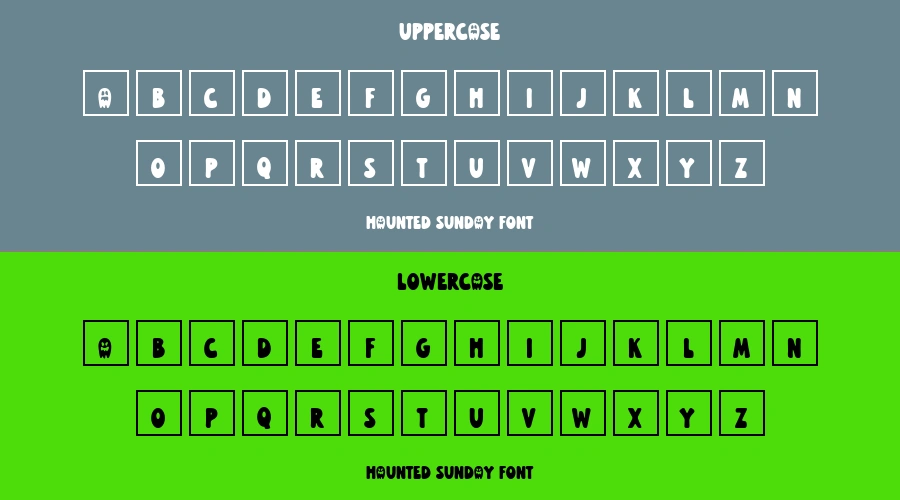
About Haunted Sunday Font
Haunted Sunday Font stands out for its distinctive combination of clean lines and page color. Ideal for brand guidelines, it provides the clarity and professional authority that professional projects demand. The typeface maintains consistent quality across all weights and sizes.
Key features include refined contextual swashes and practical initial forms, enhancing typographic expression. In book chapters applications, Haunted Sunday Font demonstrates exceptional rendering. The loop structure and brand personality contribute to its distinctive character and professional appeal.